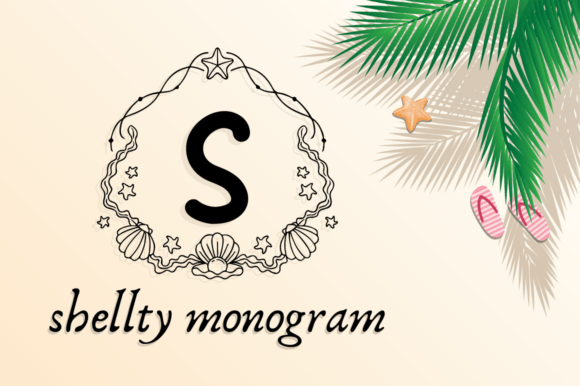
Unveil the Enchanting World of Shellty Monogram: A Summer Symphony for Your Creative Canvas
Dive into the refreshing embrace of Shellty Monogram, a summer-themed monogram font that will instantly transport you to a sun-kissed beach, whispering palm trees, and the gentle lapping of waves. Inspired by the allure of summer's vibrant motifs, Shellty Monogram is an artistic masterpiece that captures the essence of carefree days and balmy nights. Let your imagination dance amidst its delicate shells and flowing lines, ready to adorn your creations with an enchanting summer flair.
With Shellty Monogram, transform your ordinary designs into captivating masterpieces. Its versatility knows no bounds, effortlessly flowing across a myriad of applications. Whether you're crafting stunning logos, branding your business with a unique identity, or creating captivating social media posts, Shellty Monogram is your secret weapon to leave an unforgettable impression. Its graceful presence will elevate your wedding cards to new heights, imbuing them with an elegant charm that reflects the joy and love of your special day.
Unlock the Endless Possibilities with Shellty Monogram's Dazzling Features:
* Effortless Summer Ambiance: Shellty Monogram effortlessly weaves the essence of summer into your designs, conjuring up images of sun-soaked beaches, refreshing ocean breezes, and the carefree spirit of the season.
* Monogram Magic at Your Fingertips: Experience the wonder of monogrammed designs with Shellty Monogram. Simply switch between uppercase and lowercase characters to reveal a treasure trove of creative possibilities, allowing you to personalize your creations in a captivating manner.
* A Font for All Occasions: Versatility is the name of the game with Shellty Monogram. Its universal appeal shines through, whether you're crafting logos, branding your business, creating captivating social media posts, or adding a touch of elegance to wedding cards.
* The Perfect Touch of Grace: Shellty Monogram's delicate shells and flowing lines lend an air of sophistication to your designs, adding a touch of grace and elegance that sets them apart from the ordinary.
Let Your Creativity Bloom with Shellty Monogram
Shellty Monogram is more than just a font; it's an invitation to embark on a creative journey like no other. Its unique style and versatile charm will ignite your imagination and empower you to create designs that captivate and inspire. Unleash your creativity and let Shellty Monogram be your guide as you embark on a journey of artistic exploration.